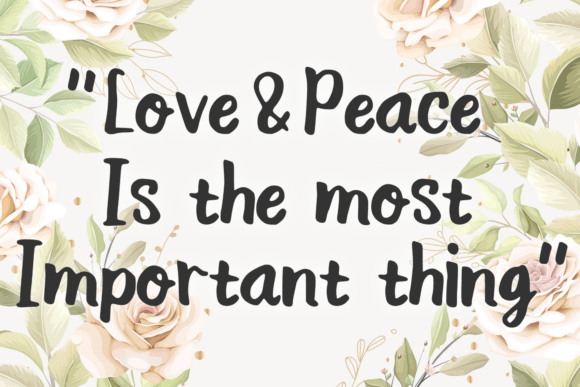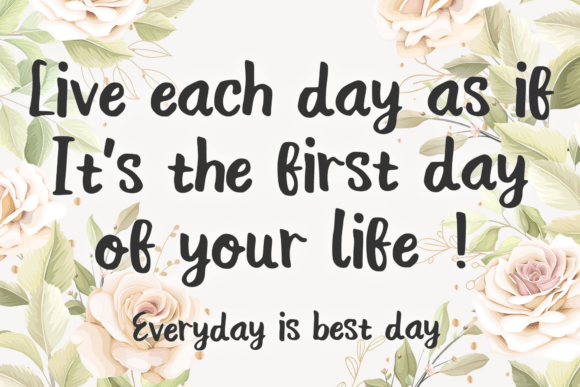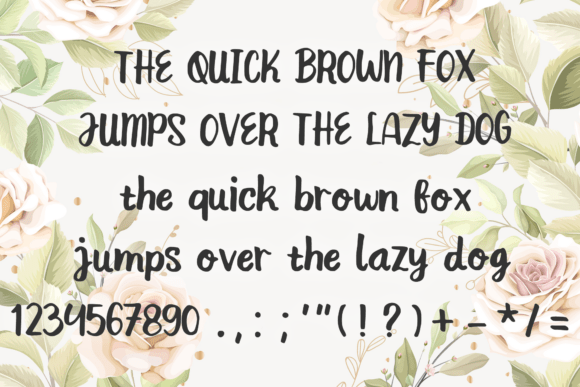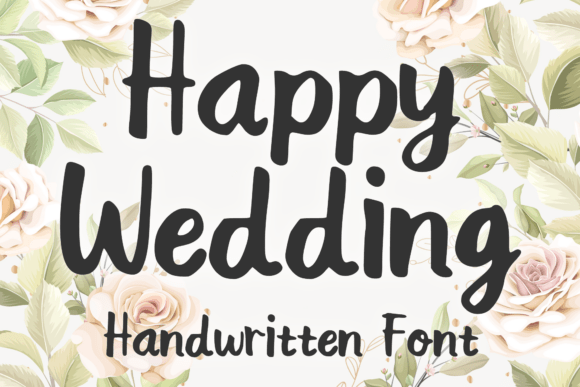
Introducing Happy Wedding Font: Elevate Your Designs with Elegance and Personality
Are you searching for the perfect font to add a touch of sophistication and whimsy to your design projects? Look no further than Happy Wedding Font, a stunning display font that effortlessly combines personality with elegance. This versatile font is ideal for creating striking headlines, captivating designs, and beautiful wedding invites that will leave a lasting impression.
The Allure of Happy Wedding Font
Happy Wedding Font boasts a unique and captivating aesthetic that sets it apart from other fonts. Its romantic essence and vivid appeal make it an excellent choice for designers and crafters looking to add a touch of refinement to their work. Whether you’re creating vintage graphics, clean-cut logos, or editorial works, this font seamlessly adapts to bring your designs to life.
One of the standout features of Happy Wedding Font is its incredible versatility. This font can be used in a wide range of design applications, from wedding invitations and party decor to branding and advertising materials. Its ability to complement both vintage and modern designs makes it an excellent addition to any designer’s toolkit.
Perfect for Wedding Designs
As its name suggests, Happy Wedding Font is an ideal choice for wedding-related designs. Its elegant and romantic feel makes it perfect for creating beautiful wedding invitations, save-the-date cards, and other stationery. The font’s whimsical touch also adds a playful and joyful feel to your designs, making it an excellent choice for wedding planners, designers, and couples looking for a unique and personalized look.
Elevate Your Design Projects
Happy Wedding Font has the power to transform your design projects and take them to new heights of refinement. Its radiant appeal and captivating aesthetic make it a delight to any design eye. With this font, you can:
• Create stunning headlines and titles that grab attention
• Design beautiful wedding invitations and stationery that impress
• Develop captivating logos and branding materials that stand out
• Enhance your editorial works with a touch of elegance and sophistication
Why Choose Happy Wedding Font?
So, why choose Happy Wedding Font over other fonts? Here are just a few reasons:
• Unique and captivating aesthetic: Happy Wedding Font boasts a distinctive and eye-catching design that sets it apart from other fonts.
• Versatility: This font can be used in a wide range of design applications, from wedding designs to branding and advertising materials.
• Elegance and personality: Happy Wedding Font seamlessly combines elegance and personality, making it an excellent choice for designers and crafters looking for a font that can add a touch of sophistication and whimsy to their work.
In conclusion, Happy Wedding Font is an exquisite display font that is sure to elevate your design projects and take them to new heights of refinement. Its unique and captivating aesthetic, versatility, and elegant personality make it an excellent choice for designers and crafters looking for a font that can add a touch of sophistication and whimsy to their work. Whether you’re creating wedding designs, branding materials, or editorial works, Happy Wedding Font is an excellent addition to any designer’s toolkit.